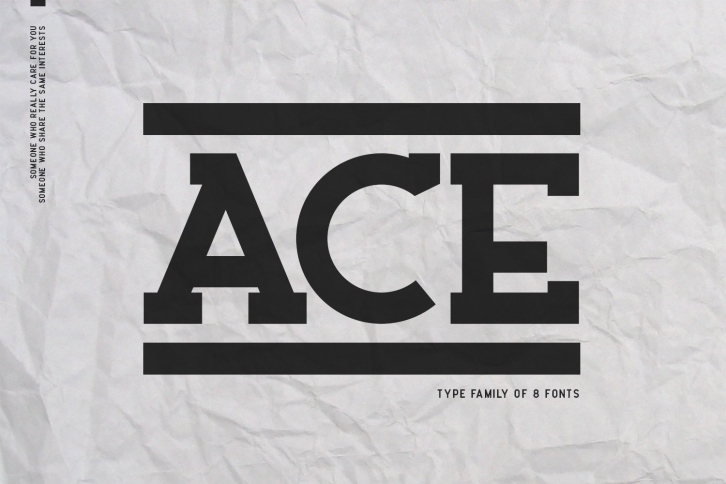
Ace Serif is a classic and bold serif font family. The combination of simple and geometric elements renders a bold design. Ace Serif family includes 8 fonts, simple and old caps, thereby creating more variability. This is irreproachable sans serif to diversify your headlines, branding visual identity, poster, logo, magazines and etc.
- 8 Weights Serif (Thin, Extralight, Light, Regular, Medium, Bold, Extrabold, Black)